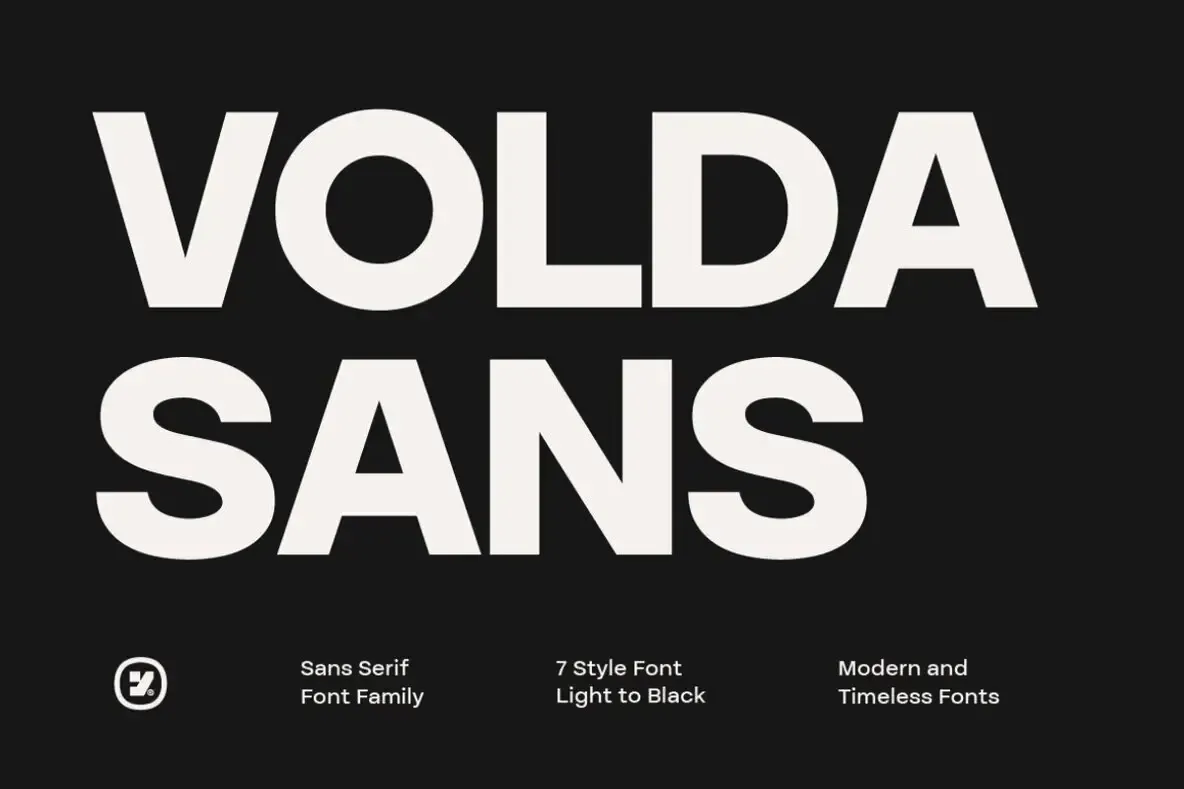
Volda Sans: A Contemporary Sans Serif Font for Every Design
Volda Sans stands out as a versatile modern sans serif font, meticulously crafted with clean lines and adaptable proportions. Available in seven weights, from Light to Black, each complemented by matching Italic styles. This range provides a total of fourteen fonts, offering extensive flexibility to meet any design requirement.
Its balanced letterforms ensure smooth readability, making Volda Sans ideal for various design contexts—be it branding, editorial layouts, web design, packaging, or professional presentations. The lighter weights exude a sleek, minimalist vibe, while the heavier weights command attention with their bold presence, perfect for headlines and impactful typography.